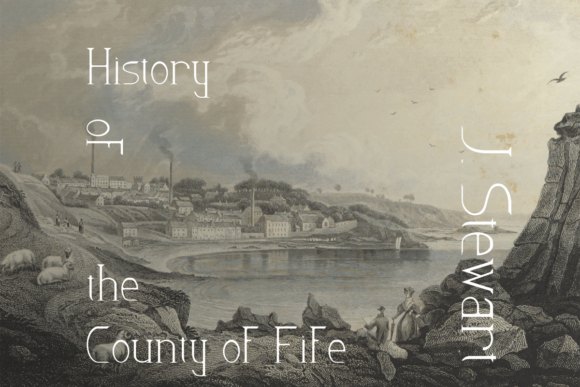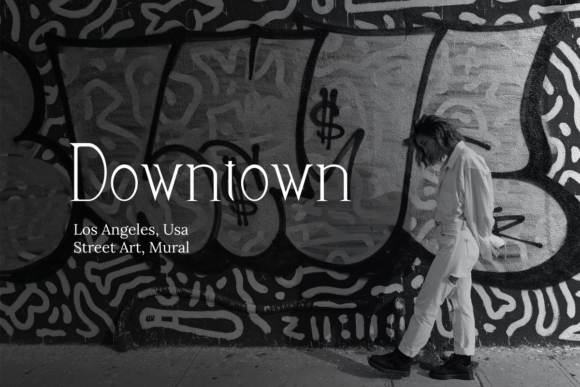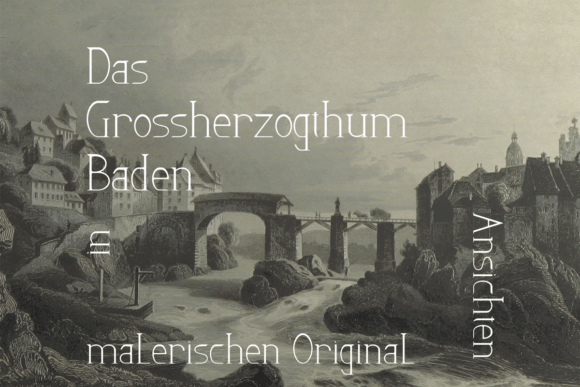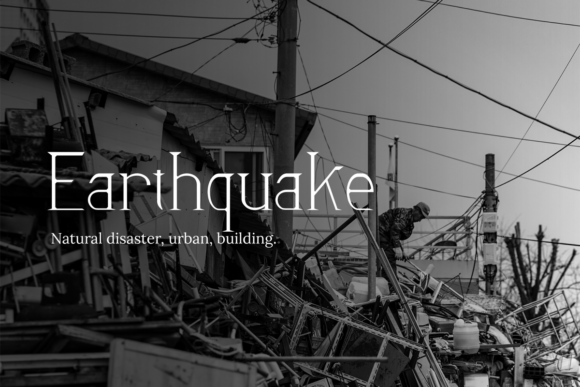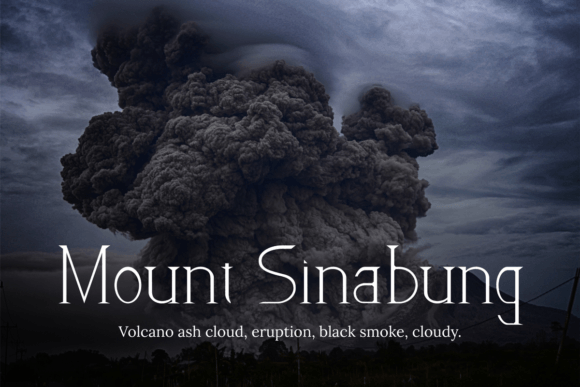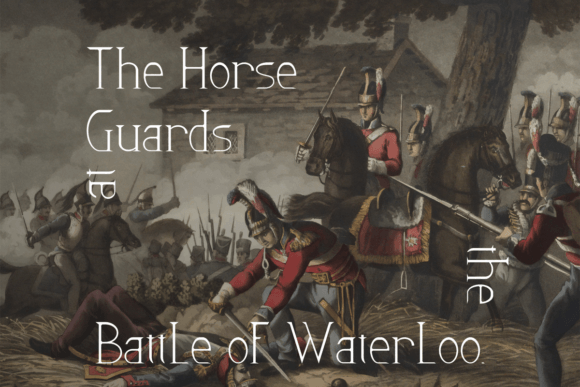
Unleashing the Power of Dead Wood Font: A Timeless Classic for Designers and Crafters
In the world of typography, fonts play a crucial role in conveying the tone and personality of a brand or design. Among the numerous font options available, Dead Wood Font stands out as a classic serif typeface that exudes mystery, coldness, and ambition. In this article, we’ll delve into the characteristics, uses, and benefits of Dead Wood Font, making it a valuable resource for designers and crafters.
What is Dead Wood Font?
Dead Wood Font, also known as Dead Wood Serif Typeface, is a traditional font that has been crafted to evoke a sense of mystery and sophistication. Its classic design makes it an excellent choice for various design projects, including logos, branding, marketing materials, and more. The font’s unique characteristics, such as its serif details and elegant lines, give it a distinctive look that sets it apart from other fonts.
Key Features of Dead Wood Font
- Classic Design: Dead Wood Font boasts a timeless design that is reminiscent of traditional serif fonts.
- Mysterious and Ambitious: The font’s unique characteristics give it an air of mystery and coldness, making it perfect for designs that require a sense of sophistication.
- Serif Details: The font features elegant serif details that add to its classic charm.
- Elegant Lines: The lines of Dead Wood Font are smooth and refined, making it suitable for a wide range of design applications.
Uses of Dead Wood Font
Dead Wood Font is a versatile typeface that can be used in various design projects, including:
- Logos: The font’s classic design and mysterious feel make it an excellent choice for logos that require a sense of sophistication.
- Branding: Dead Wood Font can be used to create a cohesive brand identity that exudes elegance and refinement.
- Marketing Materials: The font is suitable for marketing materials, such as brochures, flyers, and posters, where a sense of sophistication is required.
- Packaging: Dead Wood Font can be used for packaging designs that require a classic and elegant look.
Benefits of Using Dead Wood Font
Using Dead Wood Font in your design projects offers several benefits, including:
- Uniqueness: The font’s distinctive design sets it apart from other fonts, making it an excellent choice for designers who want to create something unique.
- Versatility: Dead Wood Font can be used in various design applications, making it a valuable addition to any designer’s font library.
- Elegance: The font’s classic design and elegant lines give it a sophisticated feel that is perfect for designs that require refinement.
- Readability: Dead Wood Font is highly readable, making it suitable for body text and other applications where legibility is crucial.
Tips for Using Dead Wood Font
To get the most out of Dead Wood Font, consider the following tips:
- Pair it with Modern Fonts: Pair Dead Wood Font with modern fonts to create a striking contrast that adds visual interest to your design.
- Use it for Headings: The font’s elegant design makes it perfect for headings and titles, where a sense of sophistication is required.
- Experiment with Colors: Dead Wood Font can be used with a range of colors, from bold and bright to muted and subtle.
Dead Wood Font is a timeless classic that offers a unique blend of mystery, sophistication, and elegance. Its versatility, readability, and distinctive design make it an excellent choice for designers and crafters who want to create something truly special. Whether you’re working on a logo, branding project, or marketing materials, Dead Wood Font is sure to impress.